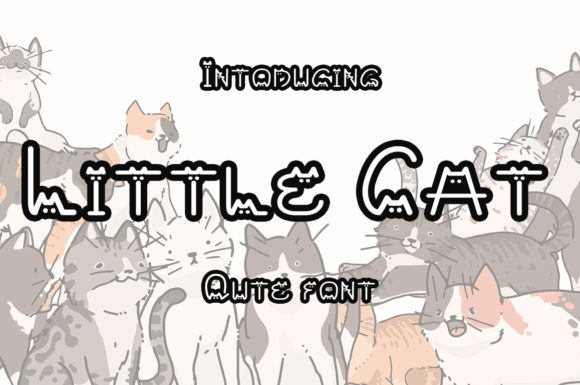
Immerse yourself in the enchanting world of Little Cat Font, where whimsy and elegance intertwine! Designed by the ingenious mind of farisgraphicart, this display font exudes an air of playfulness and individuality that will captivate your imagination.
Little Cat Font's playful and quirky nature makes it an ideal choice for captivating logos, particularly on platforms like Reddit. Its ability to evoke a sense of nostalgia and childlike wonder will resonate deeply with your target audience, creating a lasting impression.
Crafted with meticulous attention to detail, Little Cat Font boasts a unique character that sets it apart from the ordinary. Its intricate curves and charmingly imperfect lines dance across the page, capturing the essence of a hand-drawn masterpiece. The font's versatility shines through its adaptability to a wide range of designs, from playful children's books to eye-catching social media graphics.